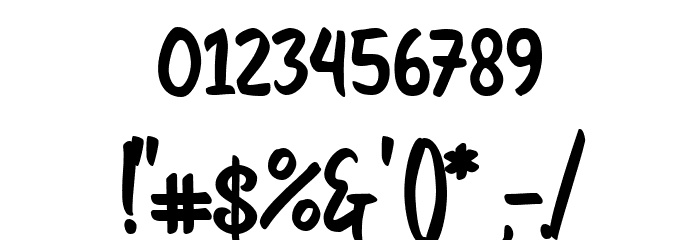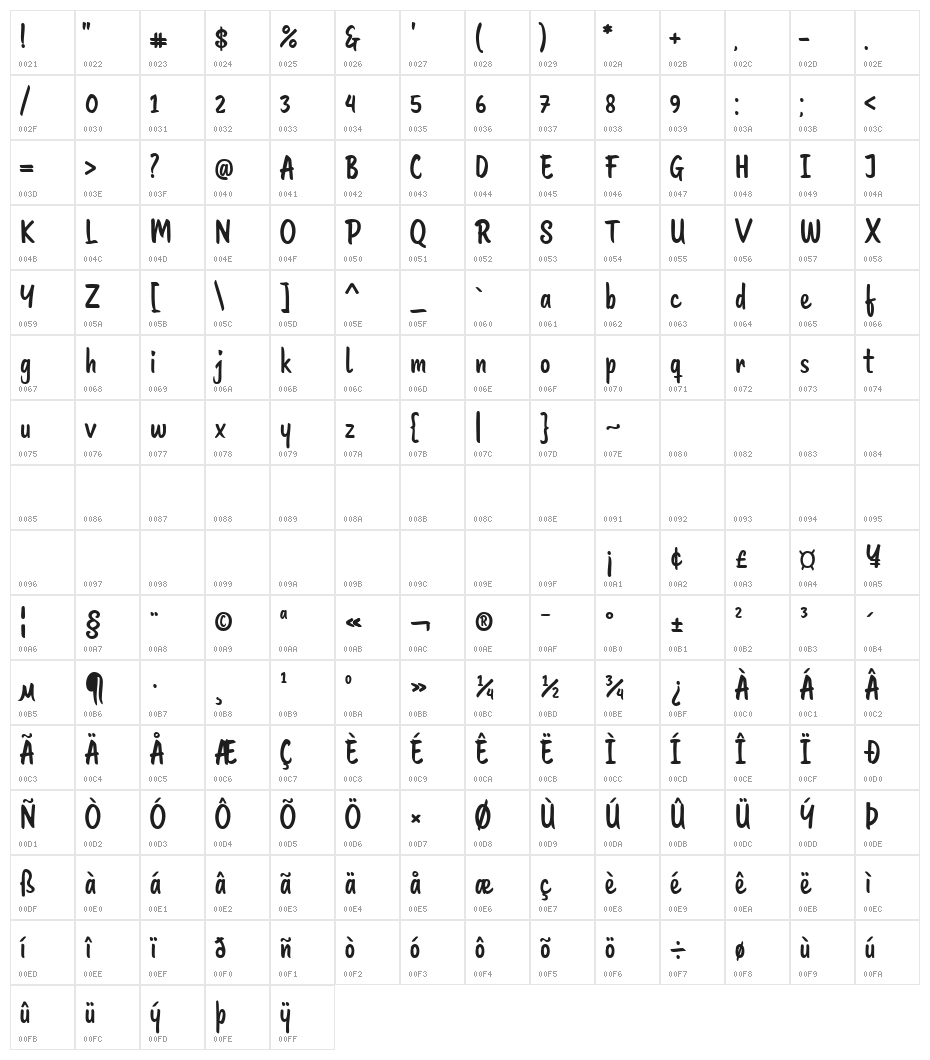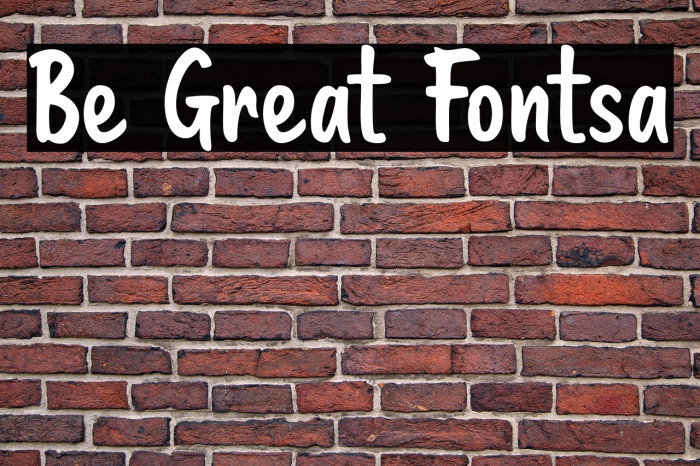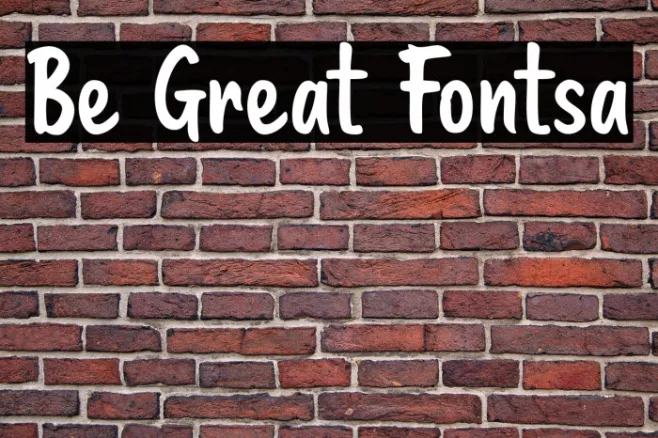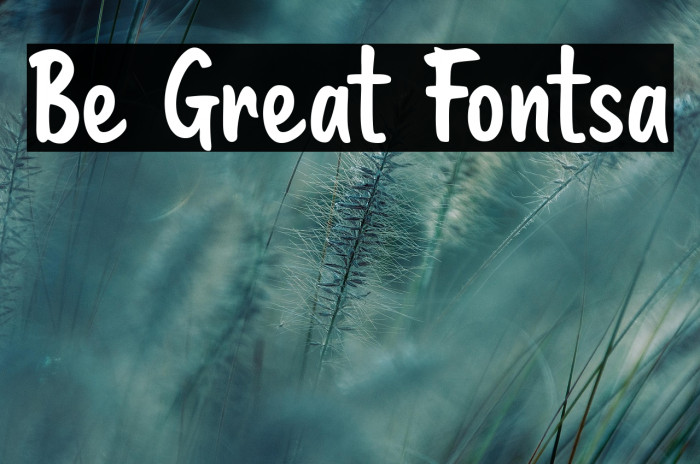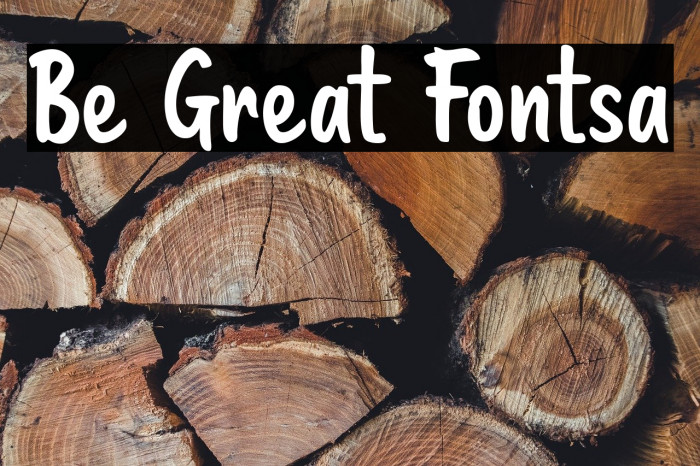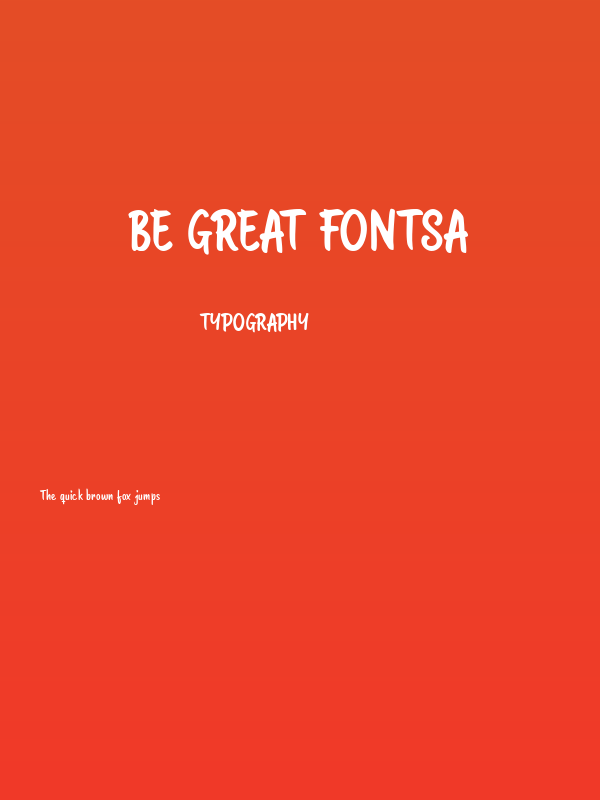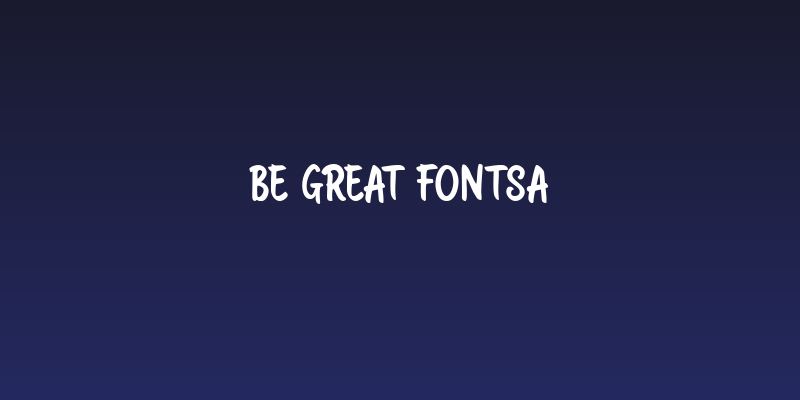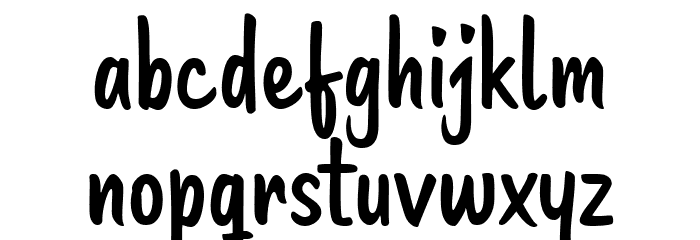
Be Great Fontsa Font
Be Great Fontsa Description
This font features a bold and playful handwritten style, characterized by its thick strokes and casual, friendly appearance. The letters are slightly slanted, giving a dynamic and energetic feel. The uppercase and lowercase letters maintain a consistent style, with rounded edges and a smooth flow. The numerals and special characters follow the same design principles, ensuring uniformity across all glyphs. This font is ideal for projects that require a personal touch, such as invitations, greeting cards, or branding materials that aim to convey warmth and approachability.
| Overall Style | Playful, Casual |
| Proposed Projects | Ideal for invitations, greeting cards, branding materials, and any project needing a personal touch. |